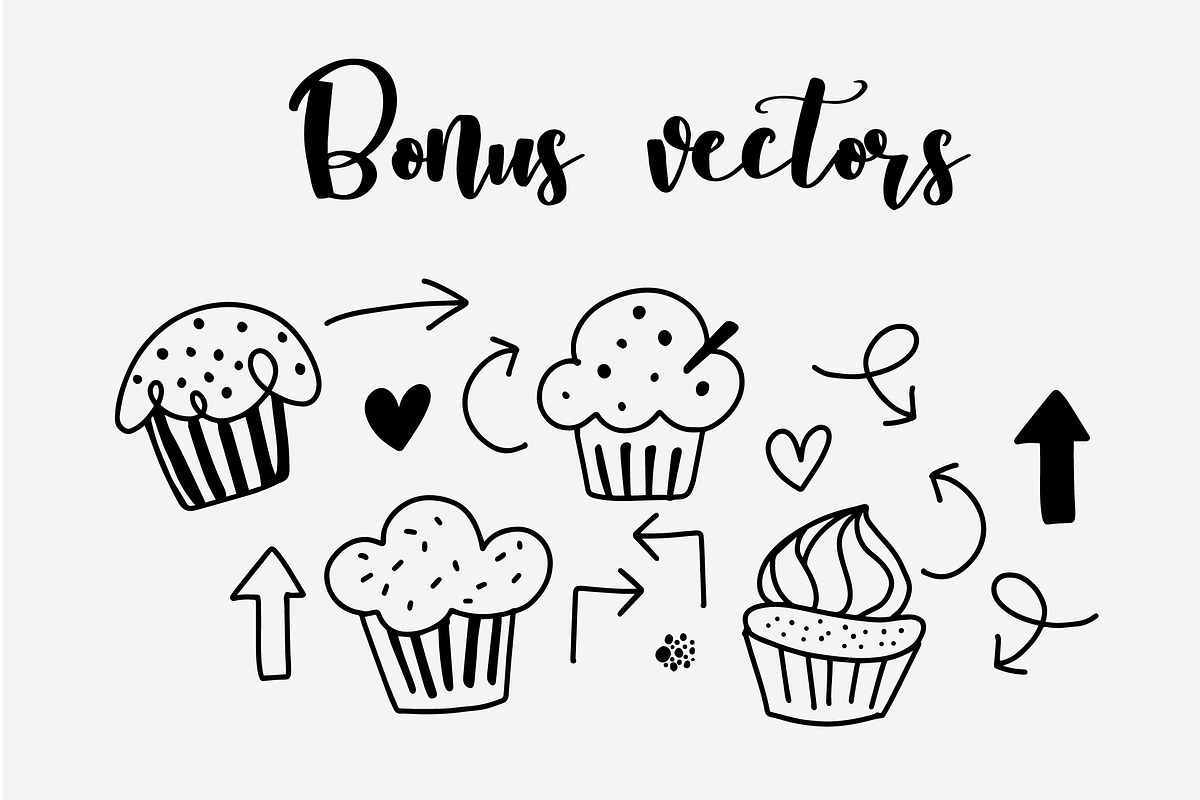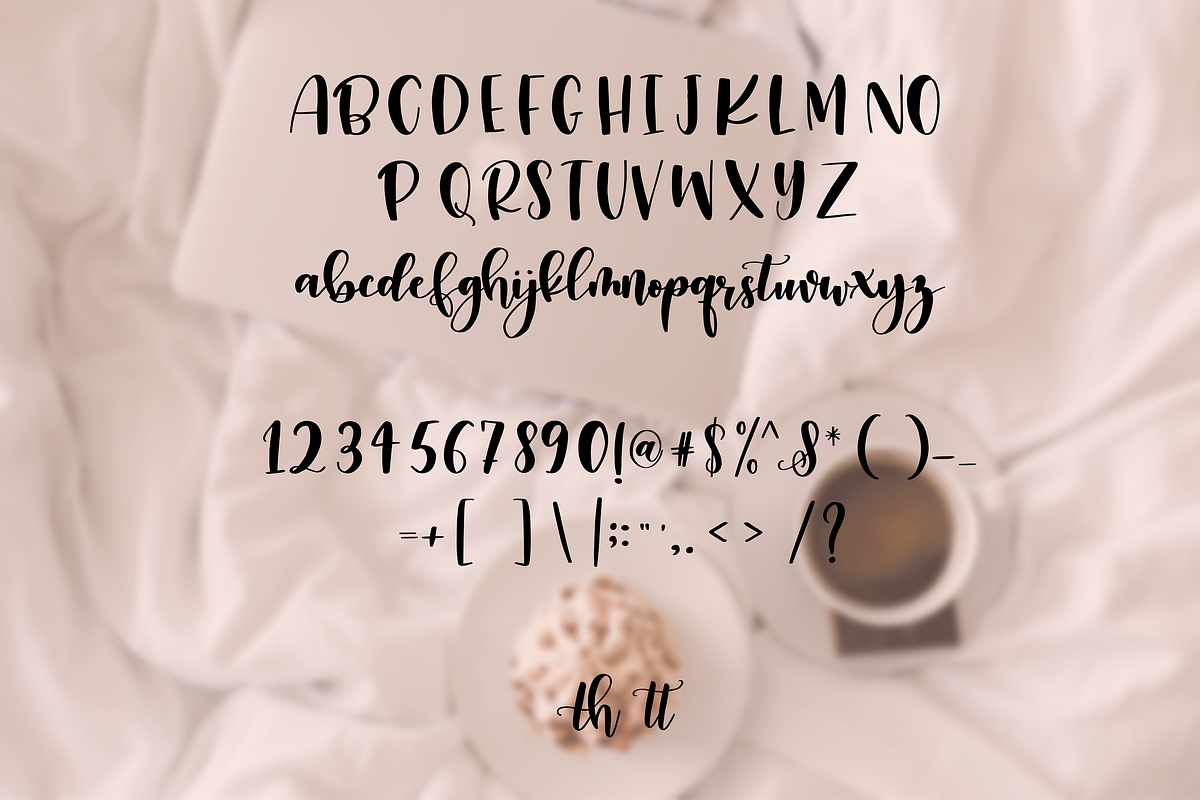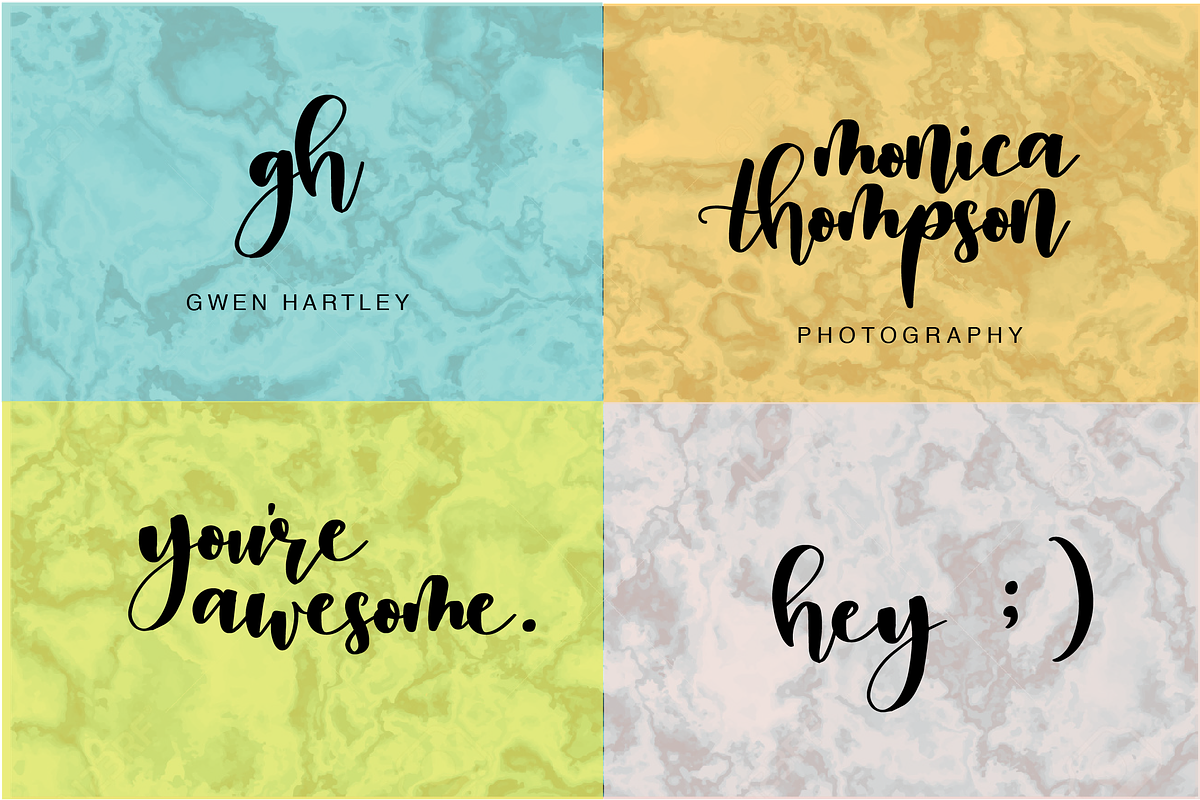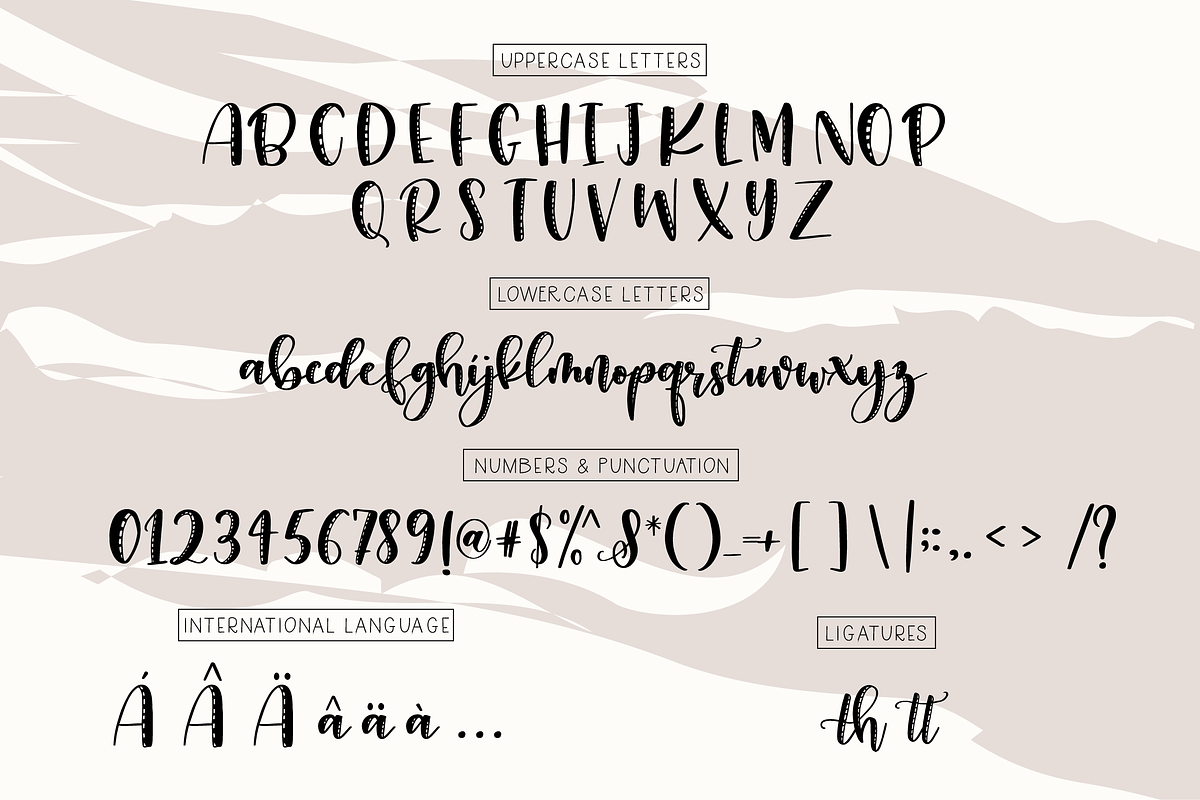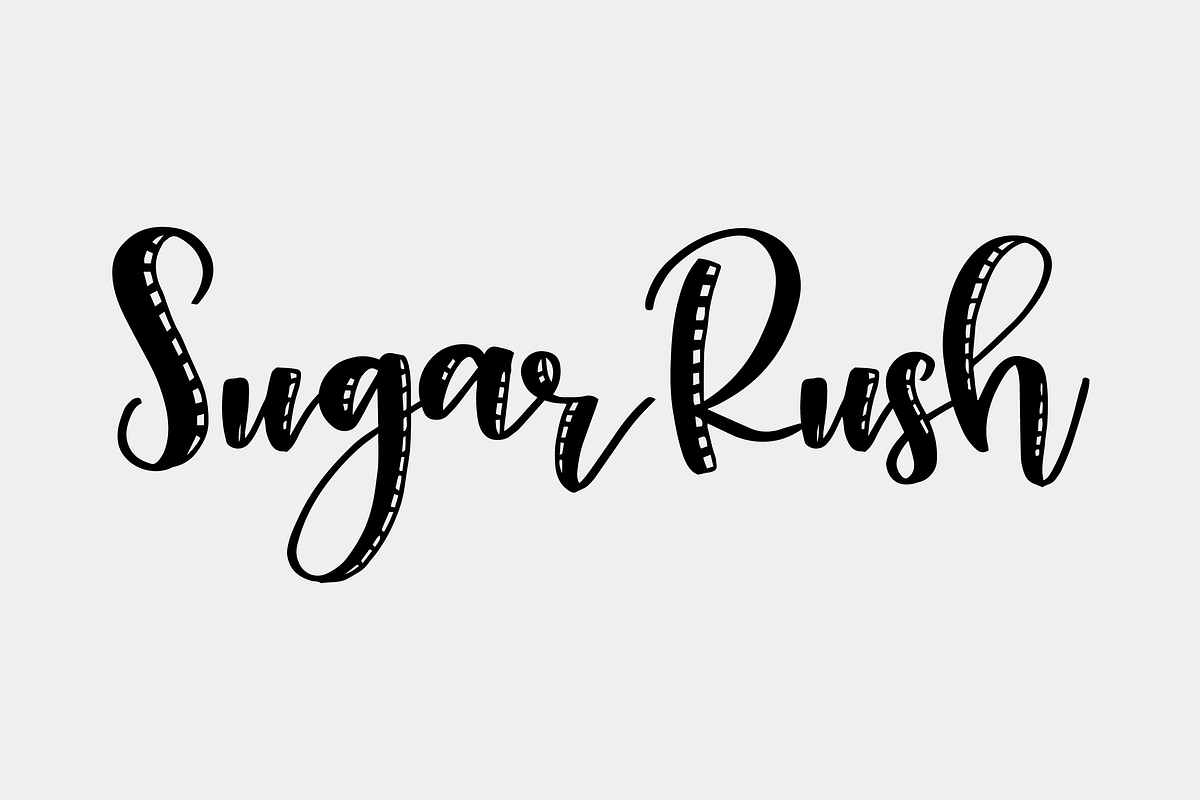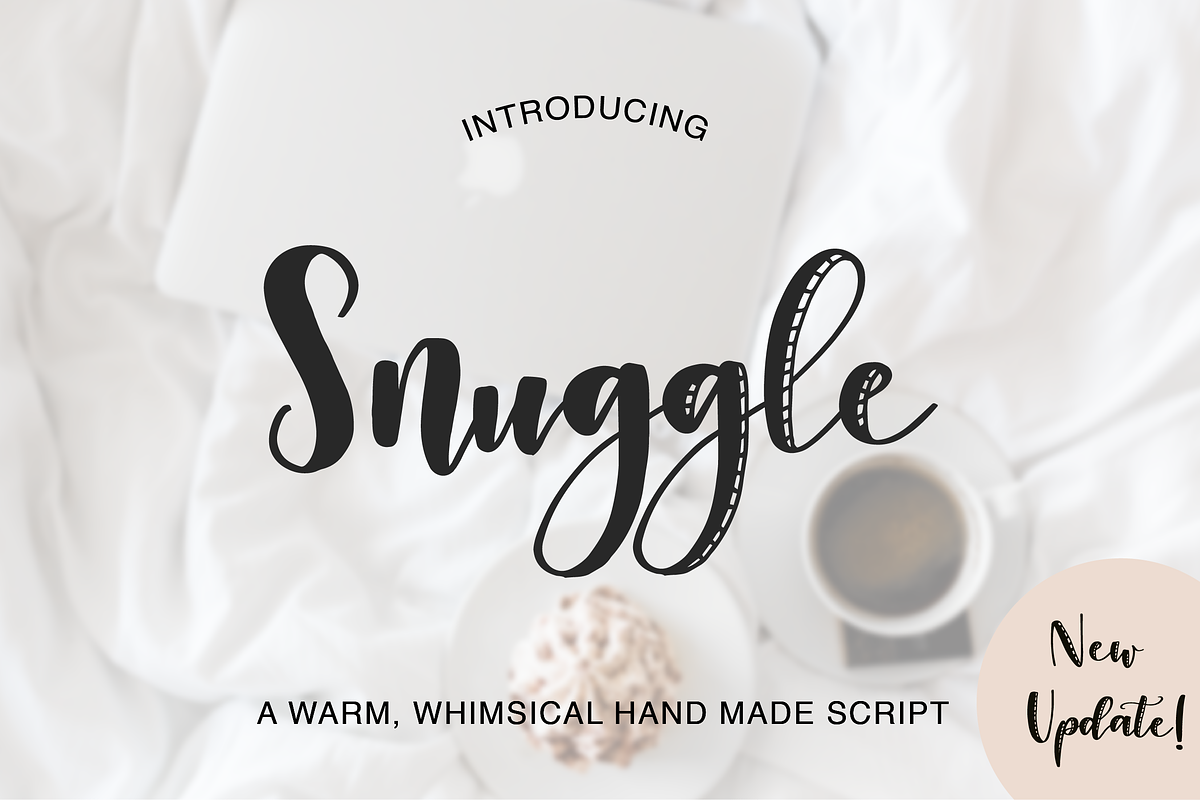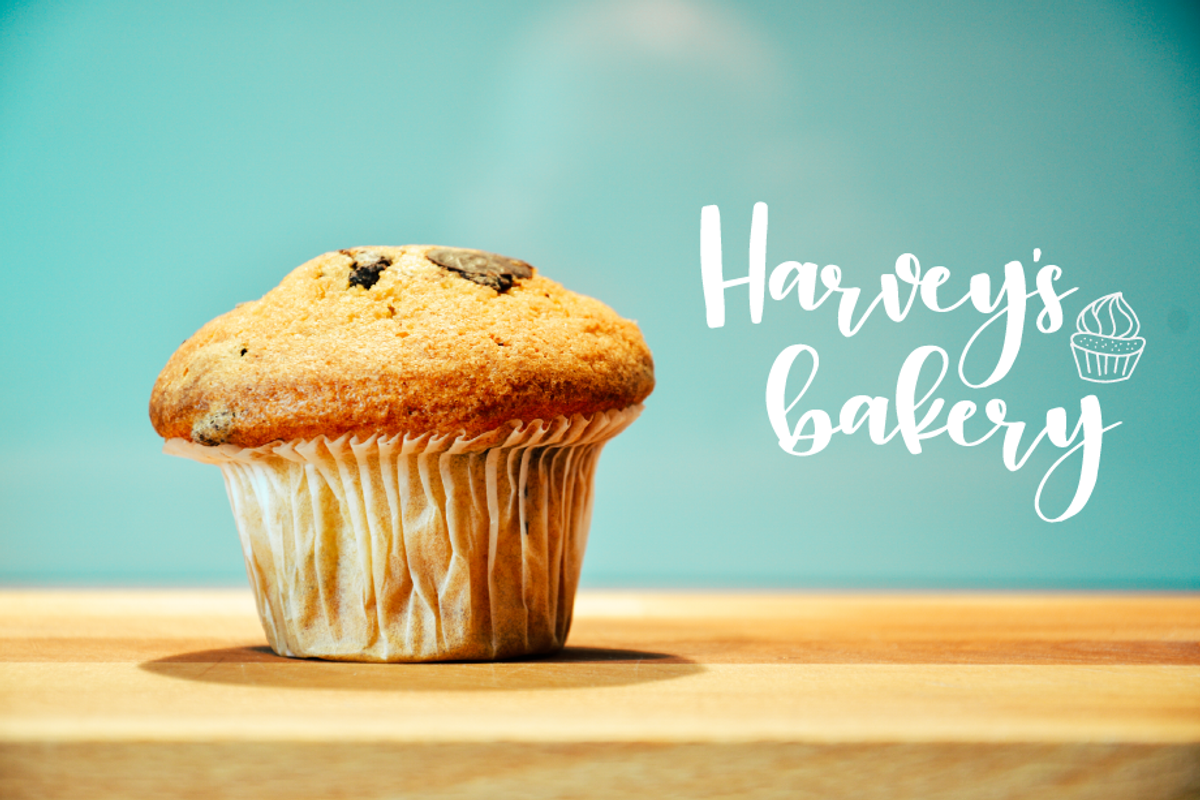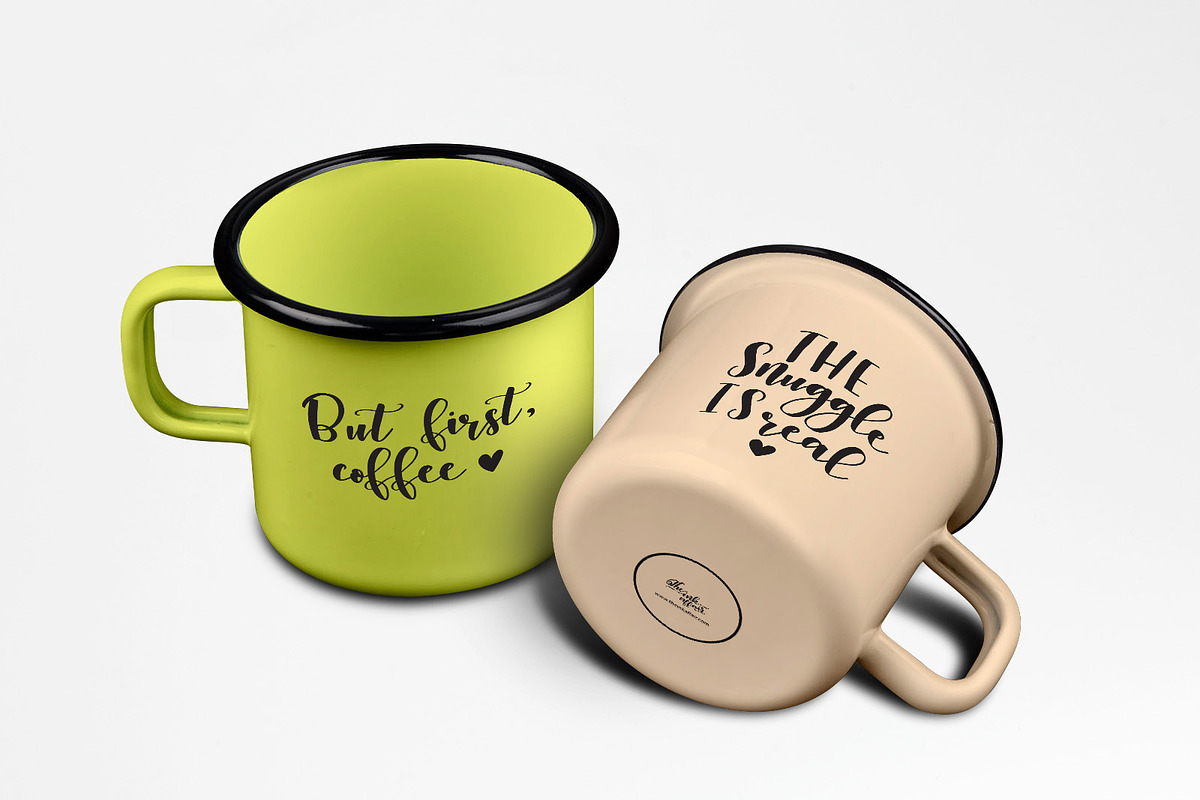
Snuggle Font
Snuggle Font by theinkaffair is a font selected for branding, posters, packaging, typography.
- Uppercase Alphabets
- Lowercase Alphabets
- Numbers and punctuations
- The font contains ligatures for 'tt' and 'th'.
- Snuggle Regular
- Snuggle Stitched Regular
Snuggle Font by theinkaffair fits naturally into Branding, posters, packaging, typography.